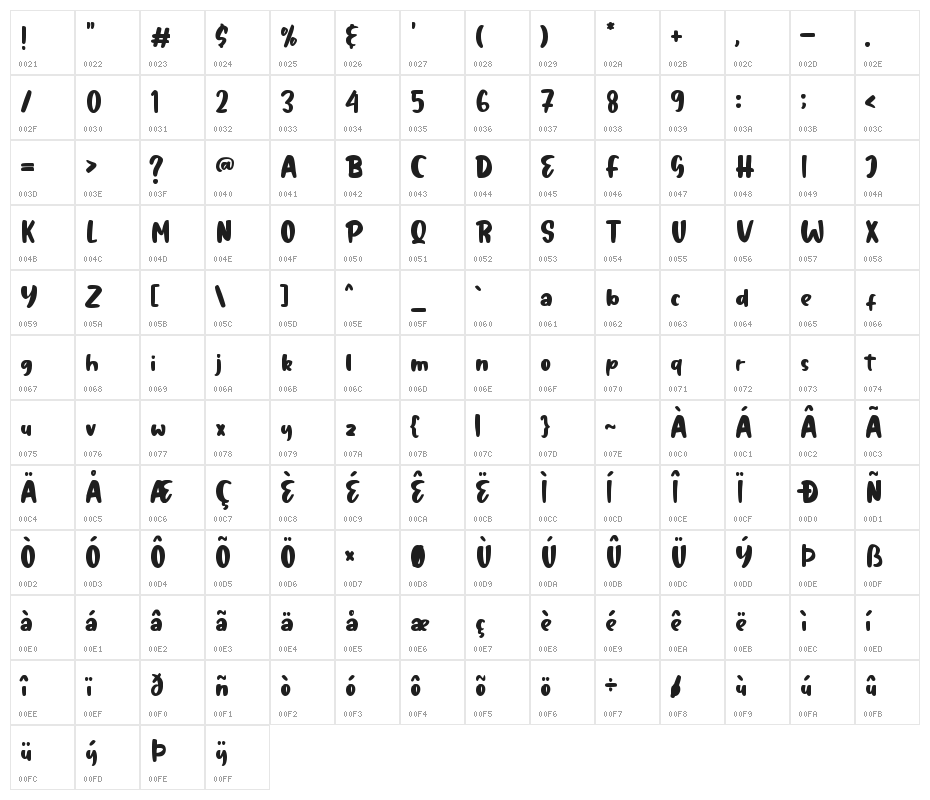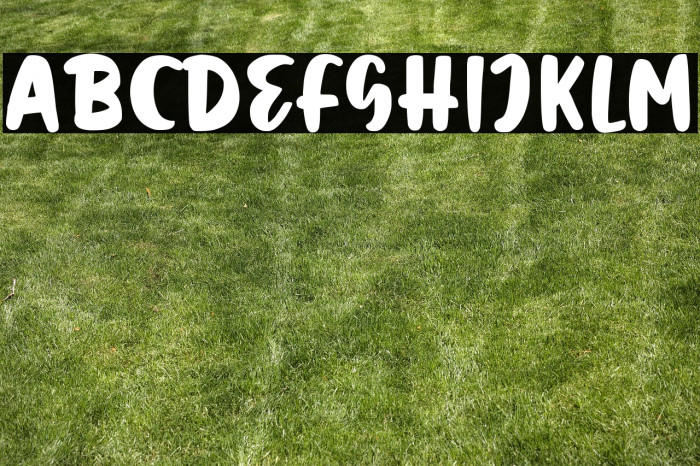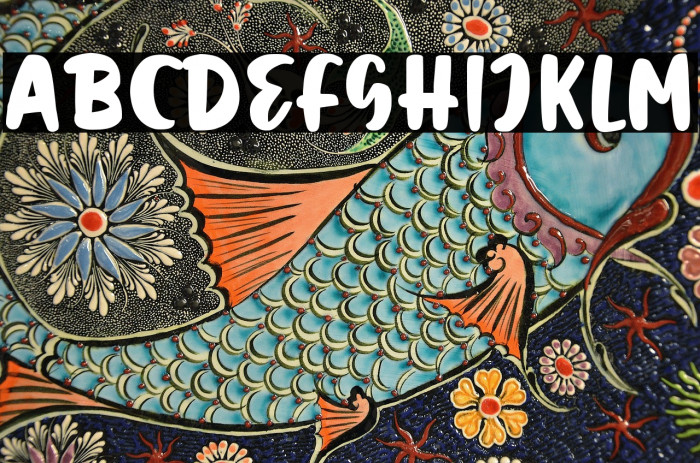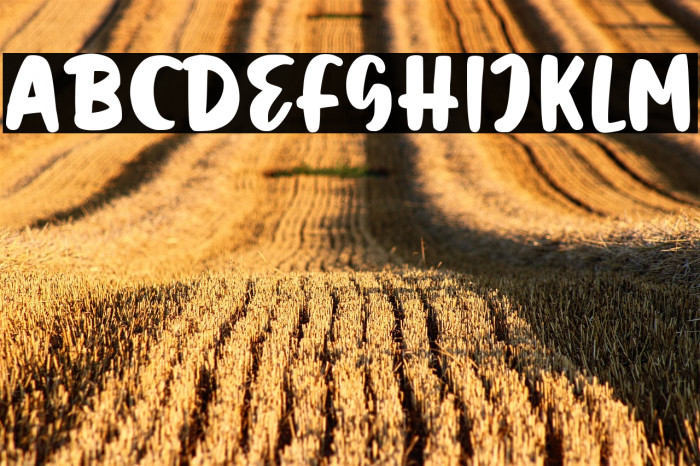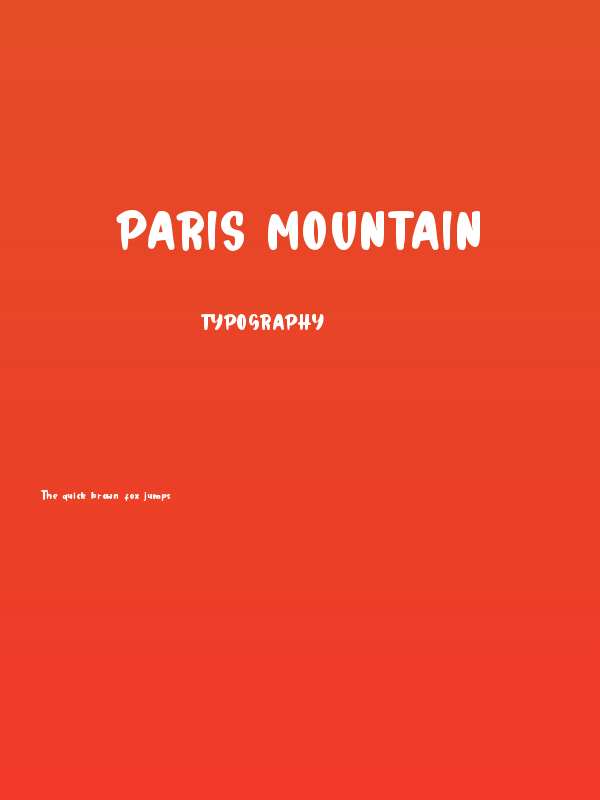
Paris Mountain Font
Paris Mountain Description
A playful and bold handwritten font with rounded edges and a casual style.
| Proposed Projects | Greeting cards, playful branding, children's books. |